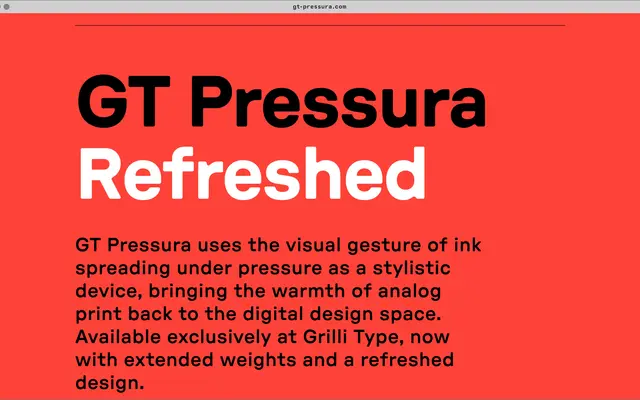
GT Pressura
Grilli Type · Dominik Huber and Marc Kappeler (Moiré) · 2012
Dominik Huber and Marc Kappeler's industrial sans modelled on ink-spread metal type and shipping-box stamps.
An industrial sans by Dominik Huber and Marc Kappeler (Moiré), released in 2012 and expanded in 2017 and 2022 to 36 styles. Grilli draw on metal-type ink spread and letters stamped on shipping boxes, using that visual gesture as a stylistic device. The family runs across Standard, Mono and Extended widths with italics throughout, plus Greek and Vietnamese extensions.
Grilli describe it as inspired by metal type printing history and engineered letters stamped onto shipping boxes, using ink-spread under pressure as a stylistic device. Offered in Standard, Mono and Extended widths.